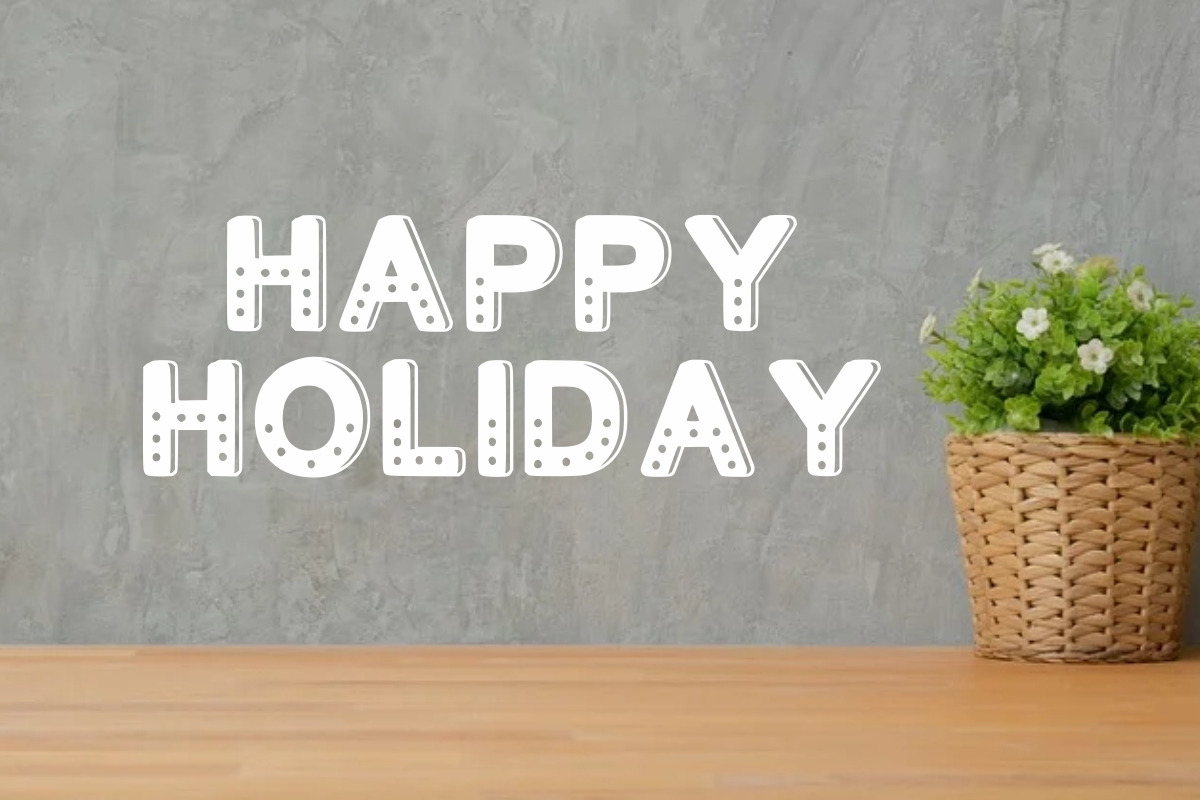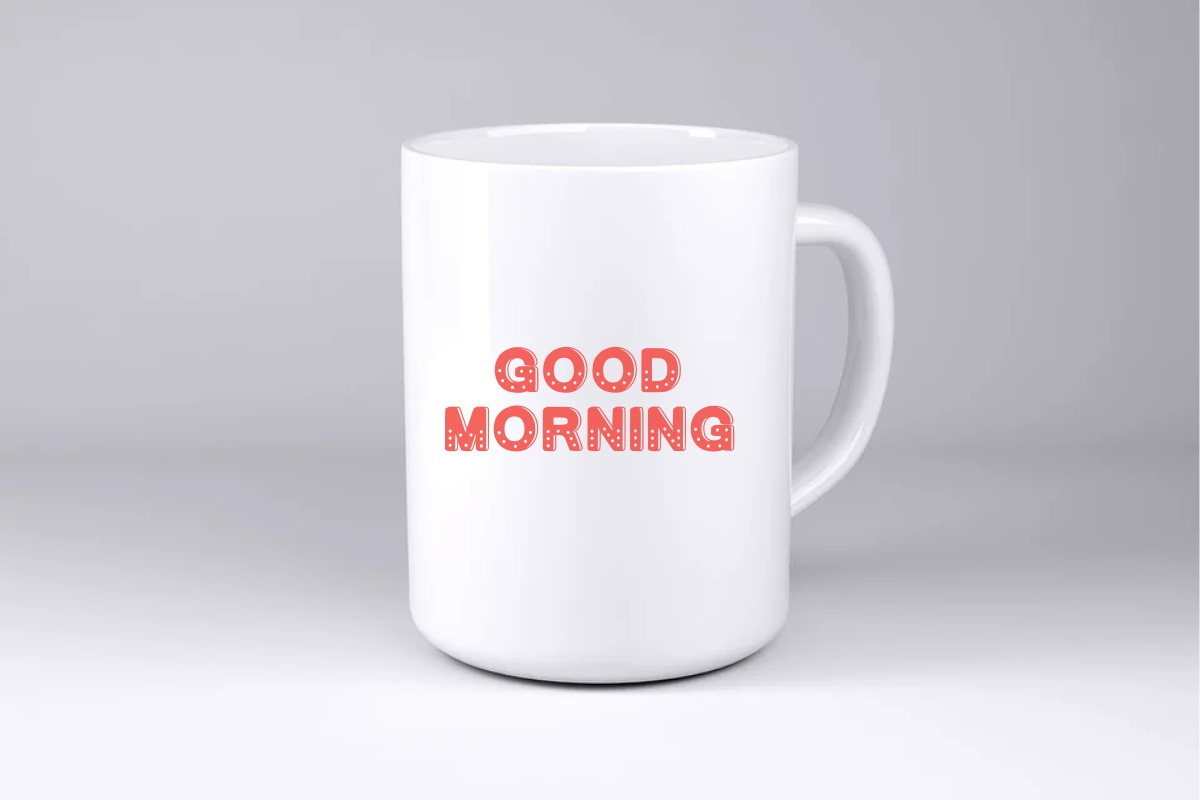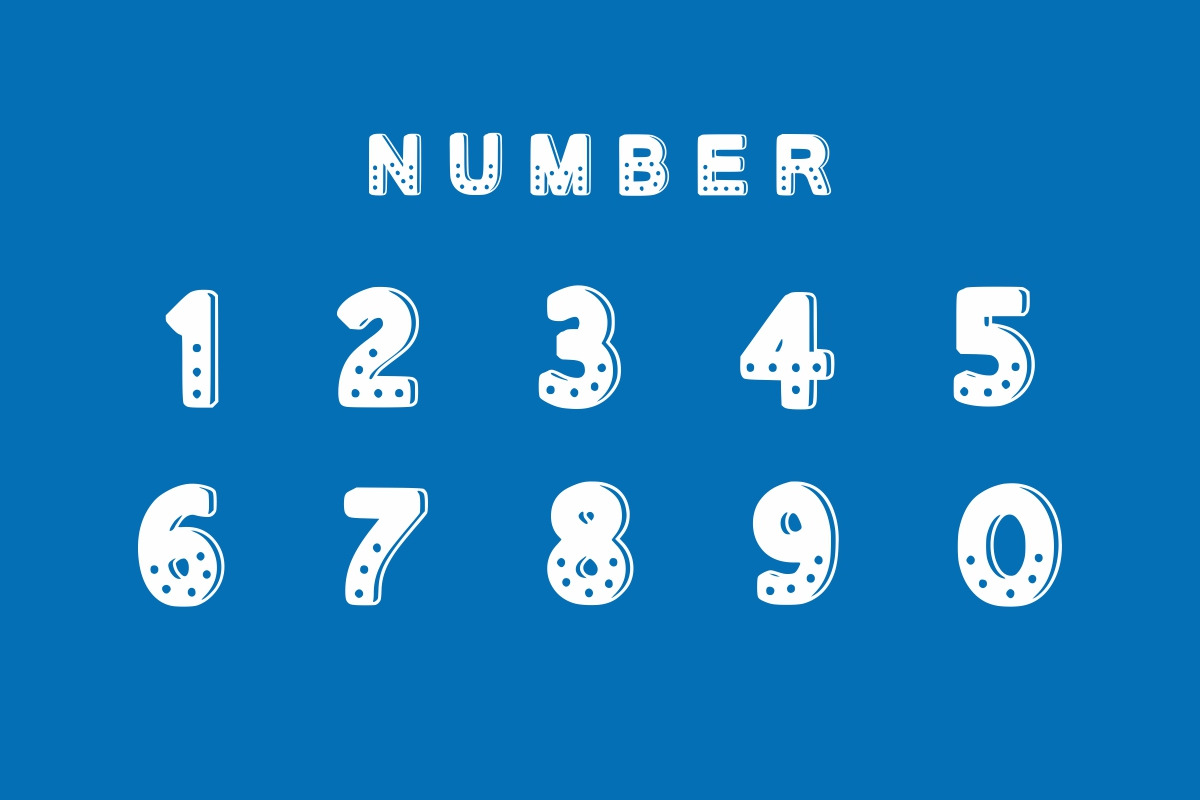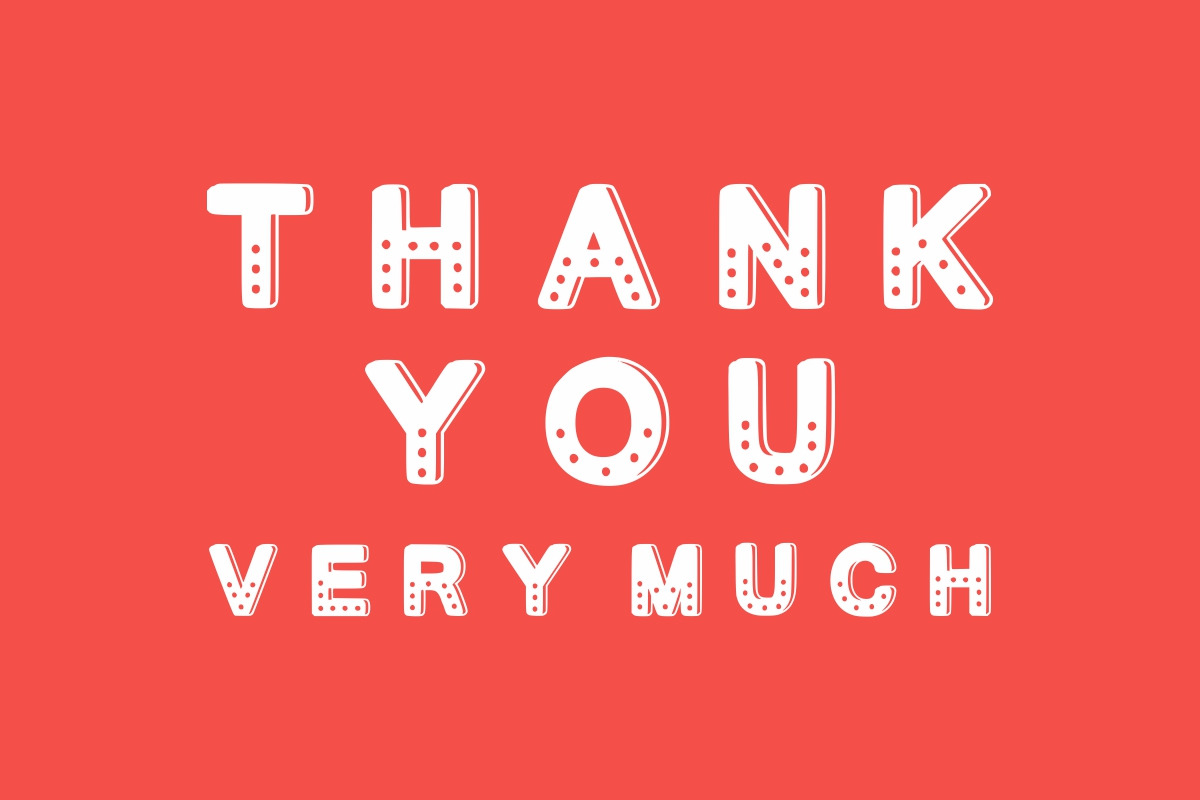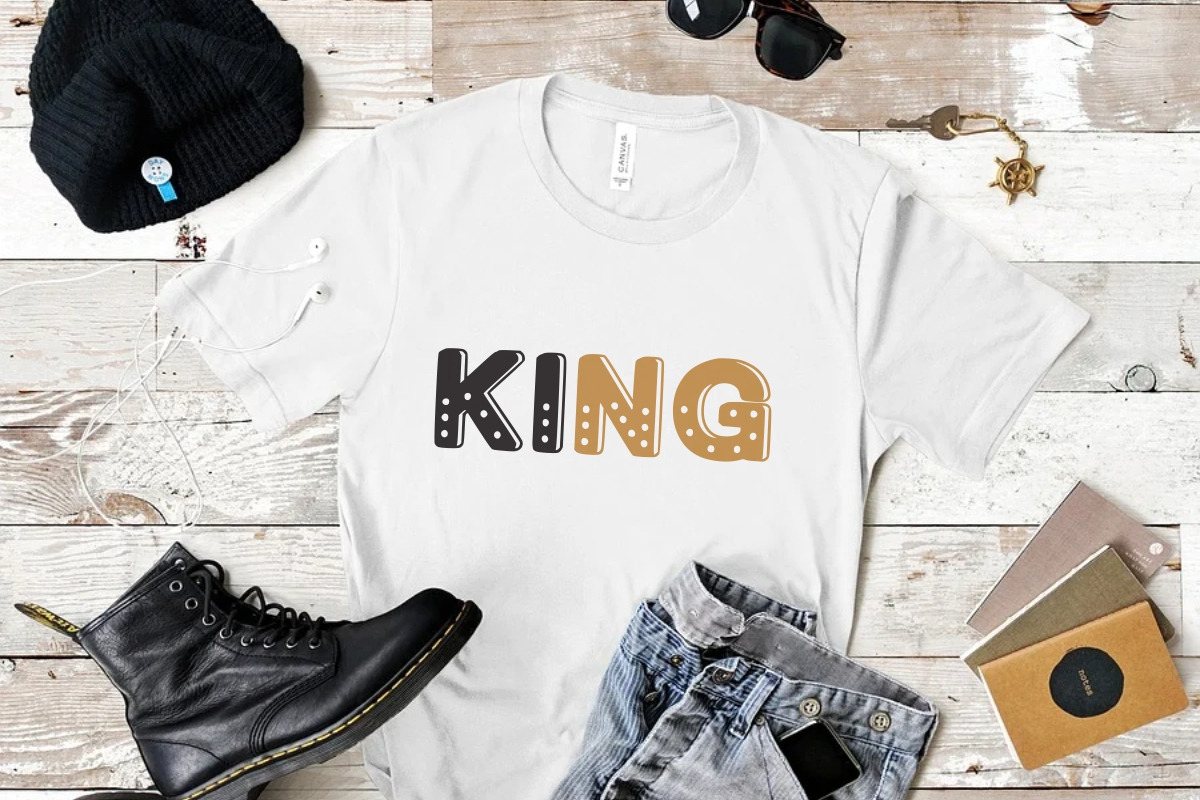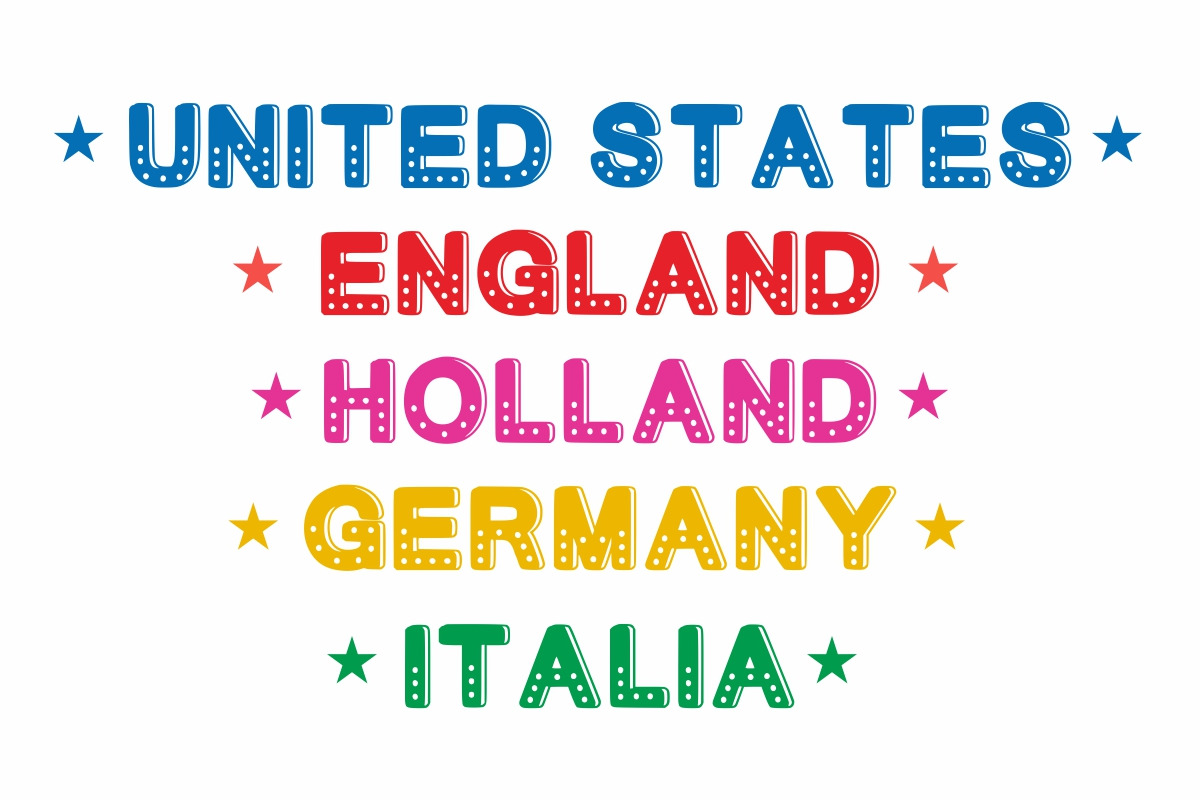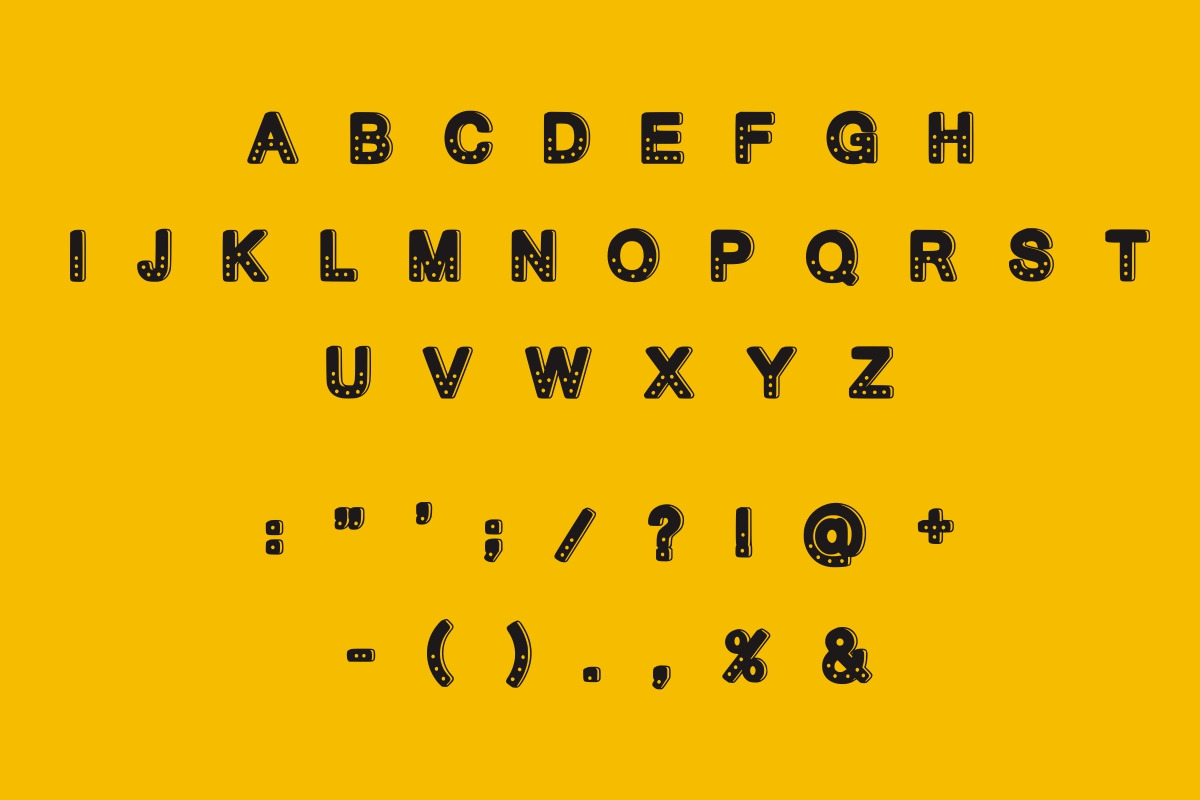
Cute Dots
Cute Dots is a childish and fun display font, designed for kids. It is easy-to-read and conveys impeccable friendliness. Whether you’re using it for crafts, digital design, text effect, feed instagram, presentations, or greeting cards, this font has the potential to become your favorite go-to choice.